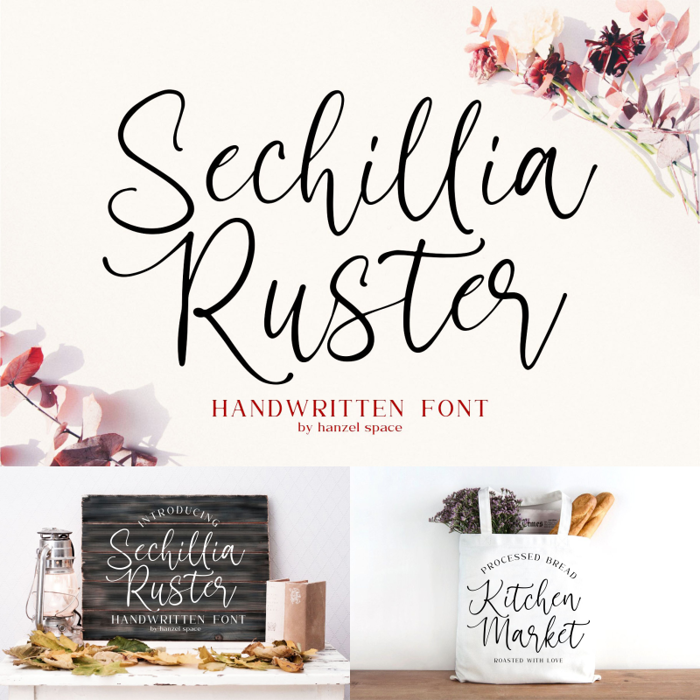
Sechillia Ruster Font
Sechillia Ruster. Made from natural pen.
it will make your design project more beautiful.
The font is suitable for any design like branding, fashion,
print template, quotes, wedding and etc.